Fonts are a designers’ best friend. It has the ability to convey the tone and manner of a design to extract desired emotions from the audience.
Today, we’ve compiled 15 bold typefaces that can easily grab a user’s attention in any design project be it an app, website, poster, brochure or even copy text. Each font face show strong characteristics capable of holding their own ground. Some are free and some are paid, but nothing’s better than finding that perfect fit to say what you want. Add them into your arsenal of fonts!
Intro
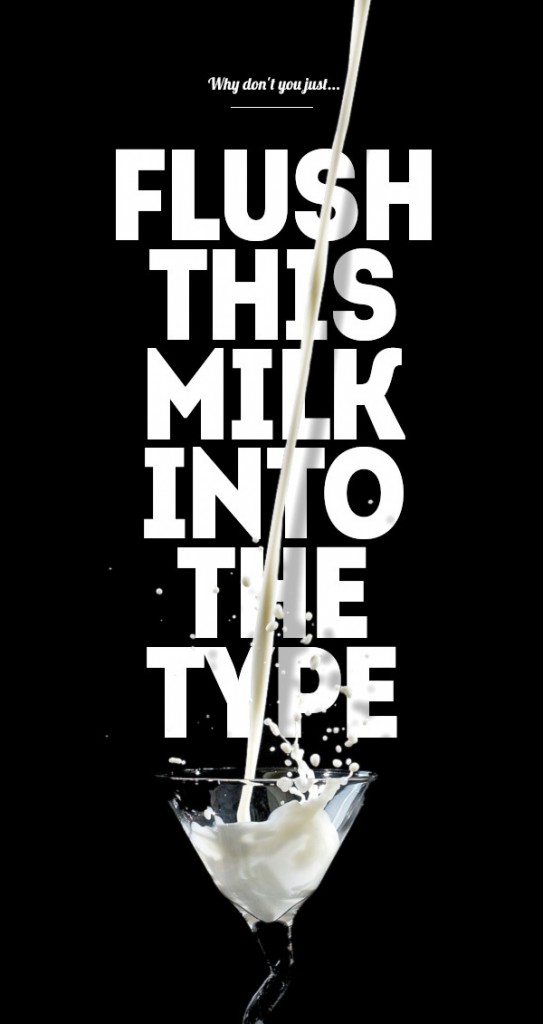
So Brush
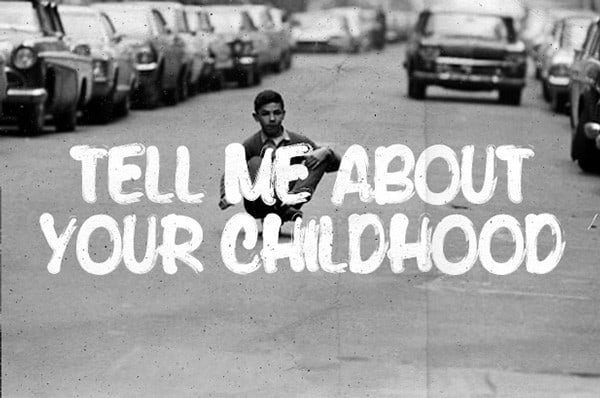
Slot
Motorless
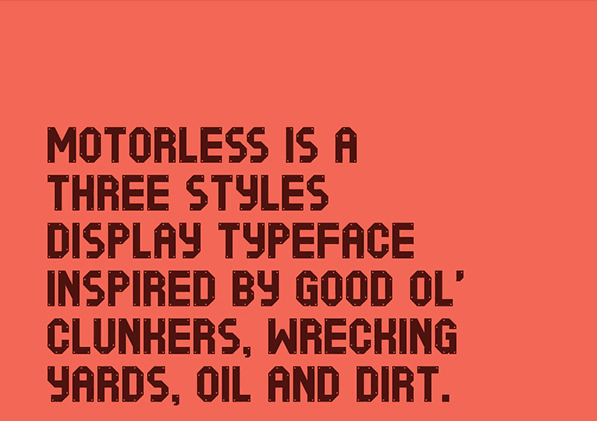
Mensch
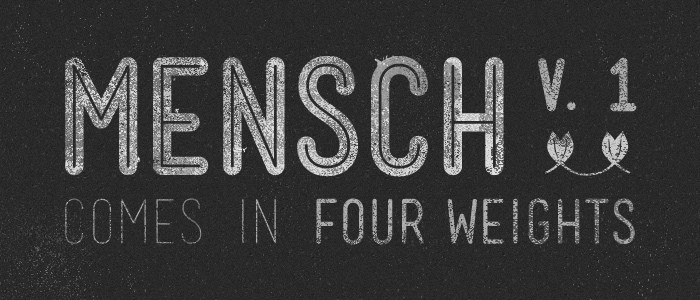
Liberator
Kursk
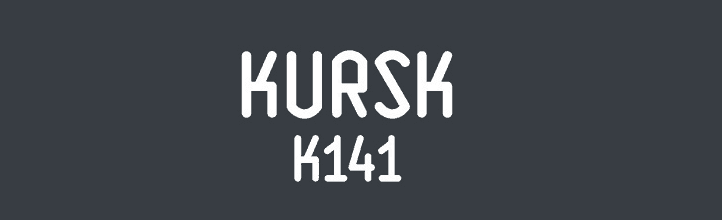
Governor
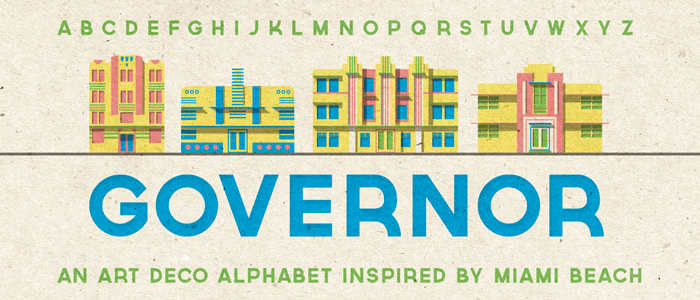
Pier
Oduda
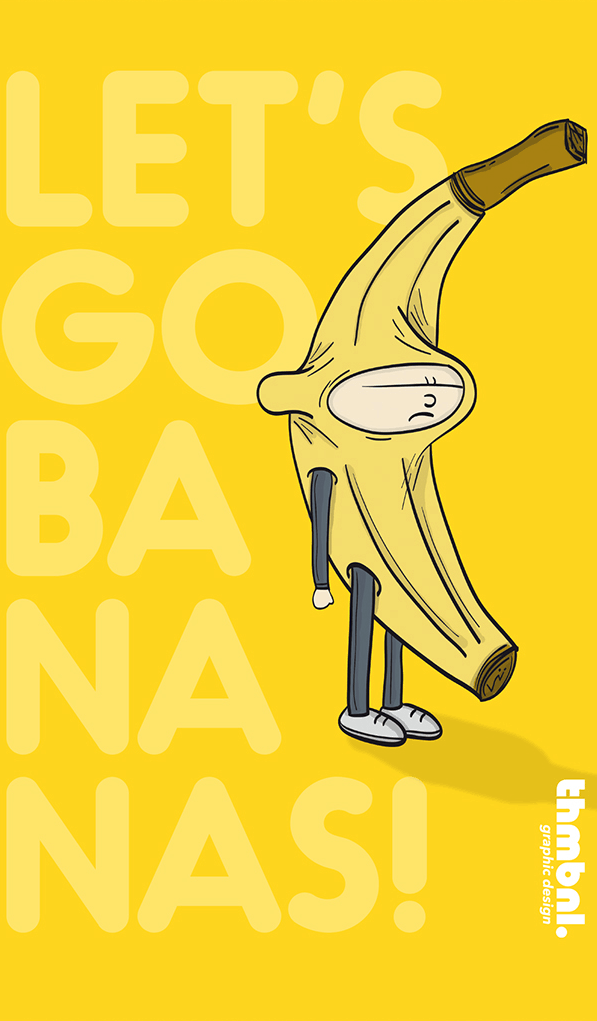
Muncie
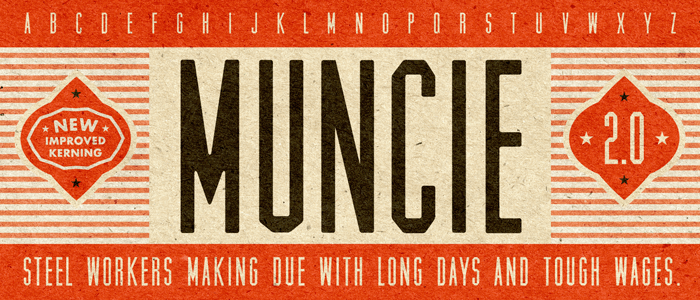
Homizio Nova
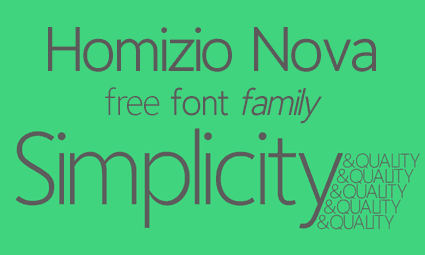
Exo
Borg
Visby